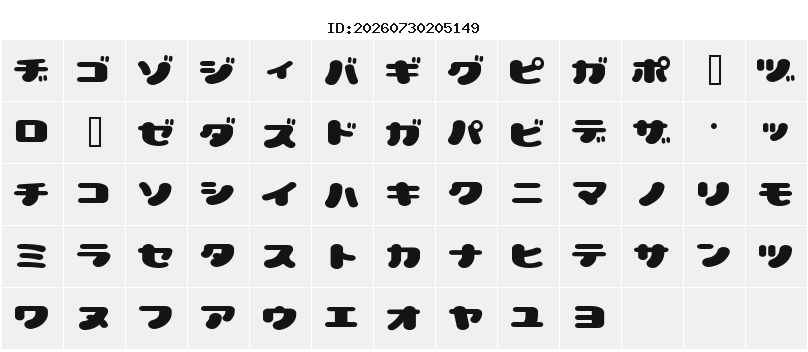
LovelyCapsules Preview
• Font Name: LovelyCapsules
• Font ID: Macromedia Fontographer 4.1J LovelyCapsules
• Full Font Name: LovelyCapsules
• Version: Macromedia Fontographer 4.1J 00.9.28
• PostScript Name: LovelyCapsules
• Character Count: 89
• Copyright: (C)1999 Gray Graphics
About LovelyCapsules.ttf
LovelyCapsules.ttf is a modern, elegant sans-serif font designed for ultimate readability and visual harmony. Perfect for branding, headlines, web design, and print materials.